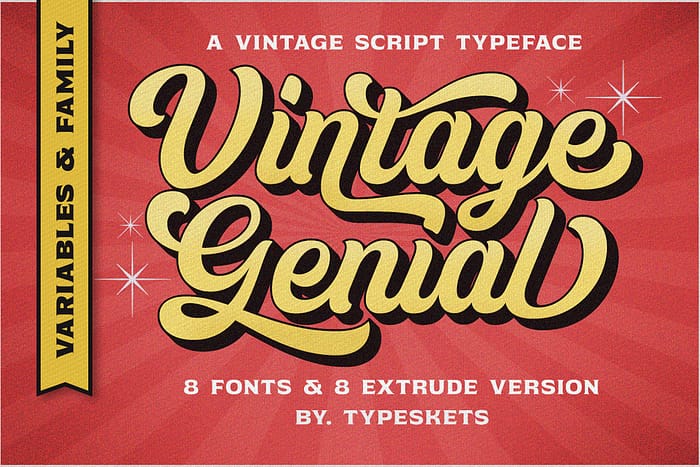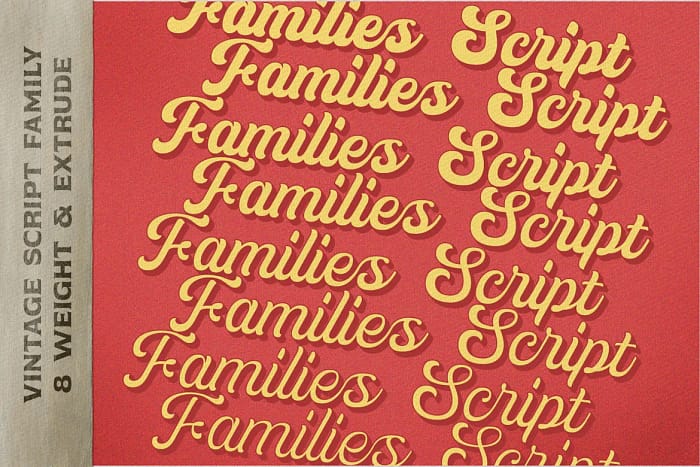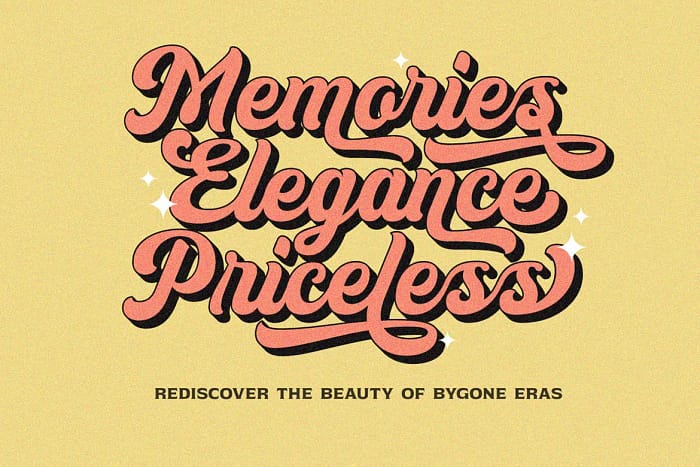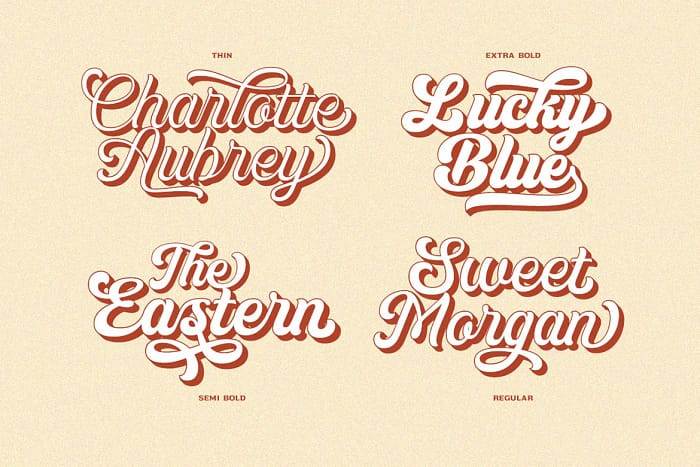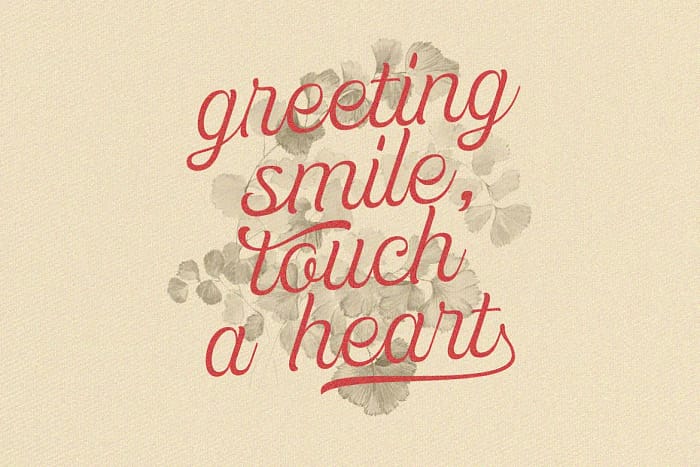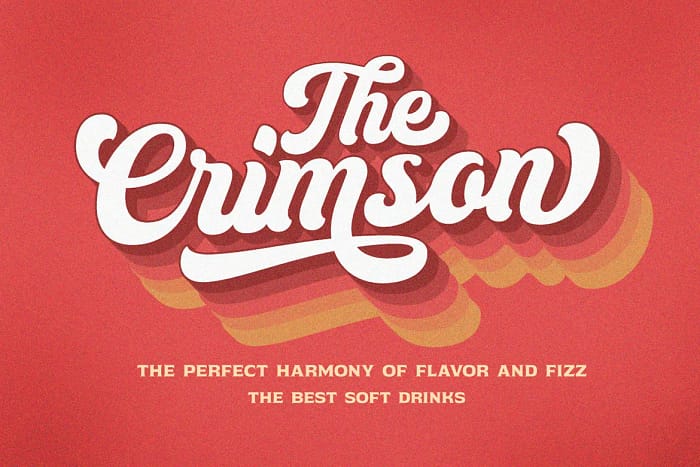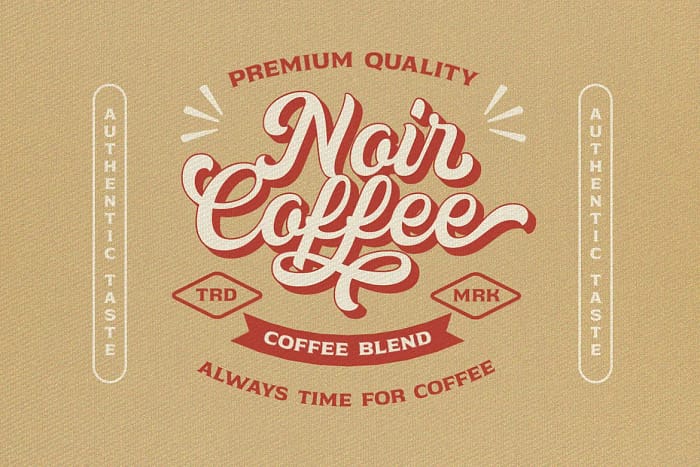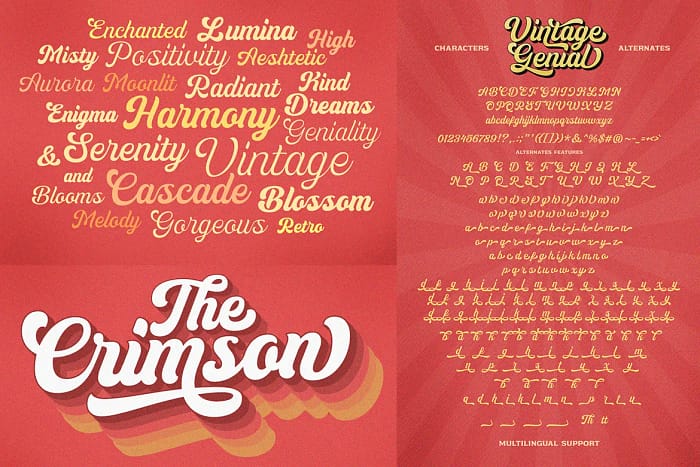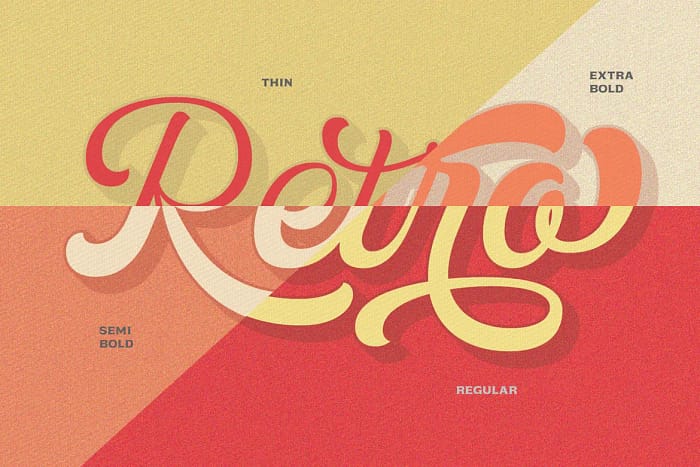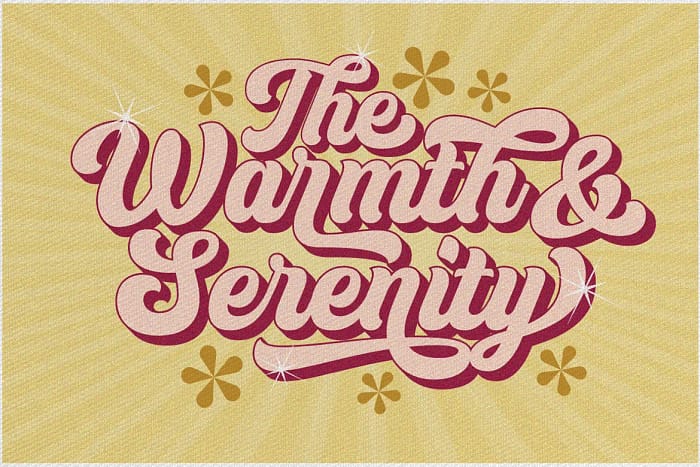
Introducing Vintage Genial, a captivating vintage script font that brings depth and dimension to your designs with its extrude version. This font family and variable package offers a timeless charm and retro-inspired style, perfect for creating visually striking and nostalgic designs.
Vintage Genial’s extrude version adds a three-dimensional effect to the classic script font, creating a visually stunning illusion of depth. This variant enhances the elegance and character of the original script styles, giving your design a distinctive and captivating aesthetic.
Customize each variant of Vintage Genial using the variable font feature to align with your brand identity. Adjust the thickness or width of the letters to create a unique look that sets your design visual
Elevate your visual design with Vintage Genial’s vintage script font and its extrude version. Experience the captivating allure of this font and give your designs a mesmerizing vintage aesthetic.